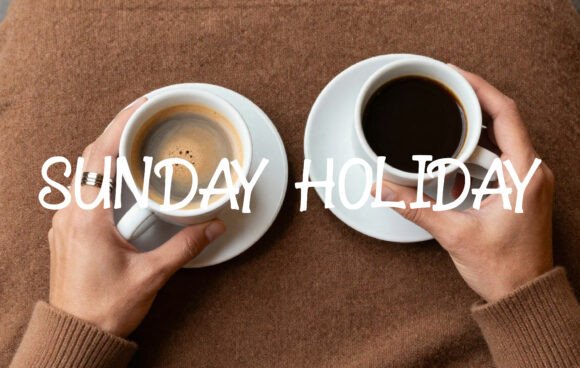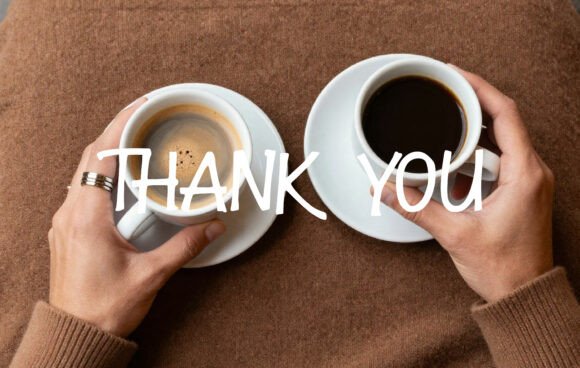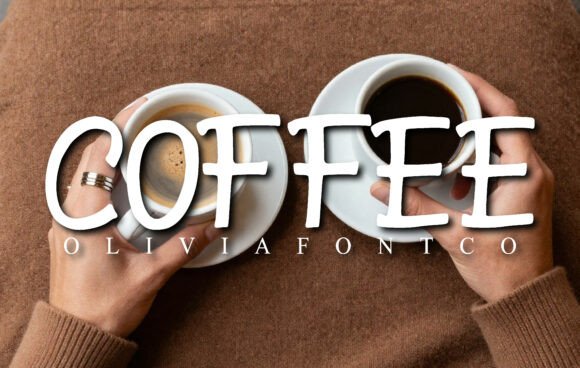
Warm Up Your Creative Portfolio with Coffee Font: A Rustic and Expressive Display Typeface
Are you looking for a font that can add a touch of warmth and coziness to your design projects? Look no further than the Coffee font, a rustic and expressive display typeface that’s perfect for capturing the atmosphere of a boutique roastery. With its bold, textured strokes and hand-inked aesthetic, this font is ideal for designers and crafters who want to convey a sense of authenticity and organic charm.
The Character of Coffee Font
The Coffee font has a unique character that sets it apart from other typefaces. Its delightful imperfections and sturdy, slab-inspired structure give it a robust personality that’s reminiscent of a rich, morning cup of coffee. The font’s hand-inked aesthetic adds a touch of human touch, making it feel more approachable and inviting. Whether you’re designing a logo for a cafe, creating packaging for artisanal products, or crafting social media graphics, the Coffee font is sure to make your project stand out.
Perfect for Cafe Branding and More
The Coffee font is perfectly suited for cafe branding, thanks to its warm and inviting personality. Imagine using it to create a logo for a cozy coffee shop, or to design a menu that showcases your cafe’s offerings. The font’s rustic charm also makes it ideal for artisanal product packaging, farmhouse-style decor, and social media graphics that need to convey a sense of authenticity and organic charm.
Key Features of Coffee Font
- Bold, textured strokes: The Coffee font features bold, textured strokes that give it a robust and organic feel.
- Hand-inked aesthetic: The font’s hand-inked aesthetic adds a touch of human touch, making it feel more approachable and inviting.
- Slab-inspired structure: The font’s sturdy, slab-inspired structure gives it a solid and dependable feel.
- Delightful imperfections: The Coffee font’s delightful imperfections make it feel more authentic and unique.
Why Choose Coffee Font?
There are many reasons why designers and crafters should choose the Coffee font for their projects. Here are just a few:
- Unique personality: The Coffee font has a unique personality that’s sure to make your project stand out.
- Versatility: The font is versatile and can be used for a wide range of projects, from cafe branding to social media graphics.
- Easy to read: Despite its bold and textured strokes, the Coffee font is easy to read, even at smaller sizes.
- High-quality design: The font is designed to high-quality standards, ensuring that it will look great in any project.
How to Use Coffee Font in Your Projects
Using the Coffee font in your projects is easy. Here are a few tips to get you started:
- Pair it with other fonts: The Coffee font pairs well with other fonts, especially those with a more modern or sleek aesthetic.
- Use it for headlines: The font’s bold and textured strokes make it perfect for headlines and titles.
- Experiment with colors: The Coffee font looks great in a range of colors, from earthy tones to bold and bright hues.
- Use it for branding: The font’s unique personality makes it perfect for branding projects, such as logos and packaging.
In conclusion, the Coffee font is a rustic and expressive display typeface that’s perfect for designers and crafters who want to add a touch of warmth and coziness to their projects. With its bold, textured strokes and hand-inked aesthetic, this font is ideal for cafe branding, artisanal product packaging, farmhouse-style decor, and social media graphics. Whether you’re looking for a font that’s unique, versatile, and easy to read, the Coffee font is a great choice.